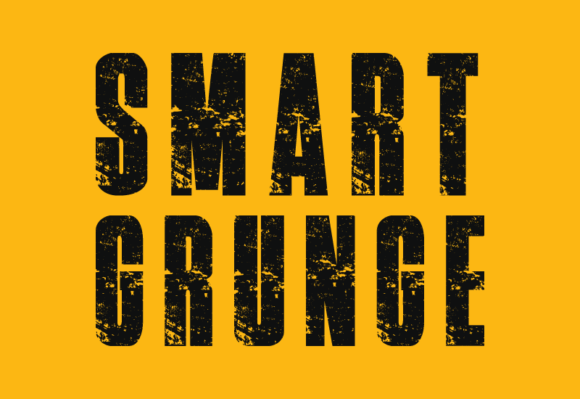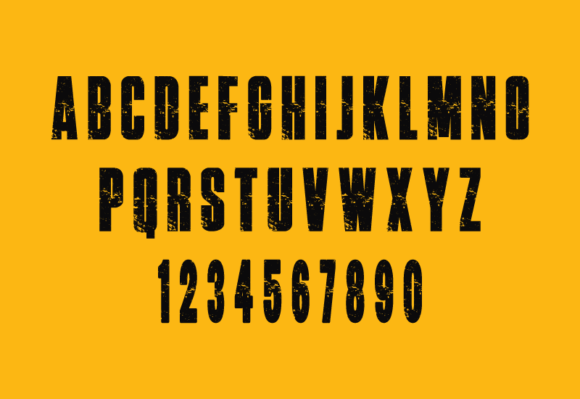
Unleashing the Power of Distinction: The Smart Grunge Font
Imagine you’re brainstorming ideas for a bold, eye-catching poster that will make a lasting impression on your audience. You’re scrolling through your design resources, searching for the perfect font to bring your vision to life. And then, it hits you – the perfect blend of edginess and uniqueness that will set your project apart from the rest. That’s where the Smart Grunge Font comes in, a high-quality, bold display font that’s designed to make a statement.
With its distinctive, distressed texture and raw, rough lines, the Smart Grunge Font is more than just a typeface – it’s a design resource that’s crafted to deliver a profound impact on your creative project. Whether you’re working on a poster, album cover, or streetwear branding, this font is sure to add a layer of audacity and non-conformity to your design. And the best part? It’s available for free download, with a transparent background that allows you to customize it to your heart’s content.
Key Features of Smart Grunge Font
- Unique blend of grunge and modern elements, perfect for creative projects requiring a high-quality design resource.
- Smart Grunge Font is ideal for a wide range of creative projects, including logos, branding, and typography-based designs.
- Instantly adds a touch of edginess and sophistication to any design, thanks to its unique and stylish character set.
Honest Review: Smart Grunge Font
I recently stumbled upon the Smart Grunge Font and was eager to give it a try in my next creative project. The font’s high quality and rugged aesthetic made me think it would be a great addition to my design resource library.
Here’s what I like about the Smart Grunge Font:
- ✨ The font’s distressed texture and transparent background give it a unique, grungy look that’s perfect for edgy designs.
- ⚠️ The font may not be suitable for all design projects, particularly those requiring a more polished or professional look.
- ⚠️ The font’s transparency may not work well in all design environments, particularly those with complex backgrounds.
Overall, I’m impressed with the Smart Grunge Font and would recommend it to designers looking for a unique, high-quality font for their next creative project.
Getting the Most Out of Smart Grunge Font
The Smart Grunge Font is perfect for creating designs that need a touch of edginess and creativity. Use it in music festival posters, urban fashion designs, or any other project that requires a bold and eye-catching look. The font’s transparent background feature makes it easy to layer over other elements and create a seamless design resource.